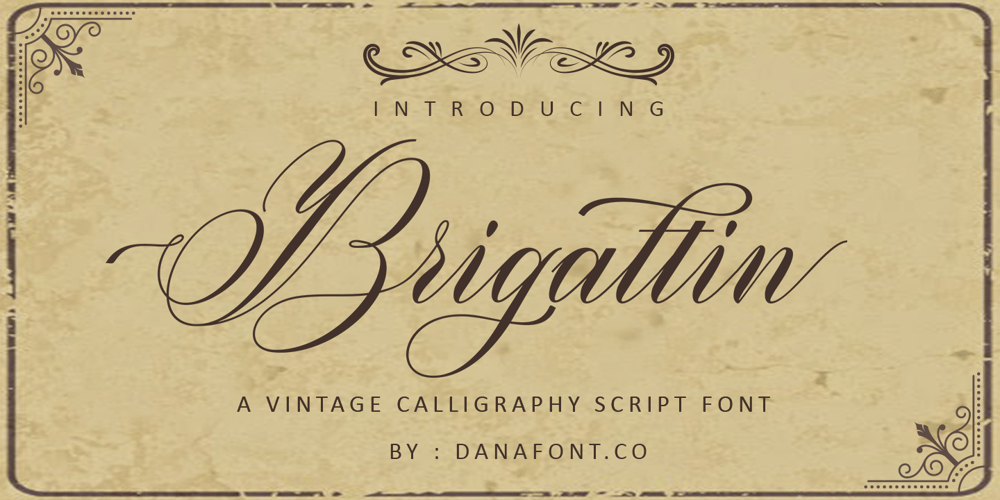
Brigattin
Brigattin font
Brigattin Font Family was designed by Muhammad Alkaf and published by Muhammad Alkaf. Brigattin contains 1 styles and family package options. Brigattin is a calligraphy script font that comes with beautiful alternative characters. a mixture of copper calligraphy with handleting style. Designed to bring style elegance. Brigattin Script attracts such a subtle, clean, feminine, sensual, glamorous, simple and very readable typeface. The classic style is perfect to apply in various formal forms such as invitations, labels, menus, Logos, fashion, make up, stationery, letterpress, romantic novels, magazines, books, greeting / wedding cards, packaging, labels.Brigattin has 494 glyphs. including multiple language support. With OpenType features with stylish alternatives, ligatures and characters, allowing you to mix and match pairs of letters to fit your design, as well as a touch of ornament to make this font look elegant.